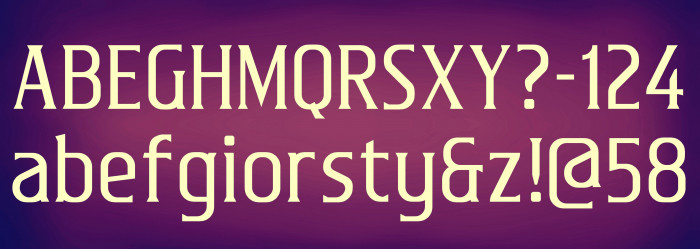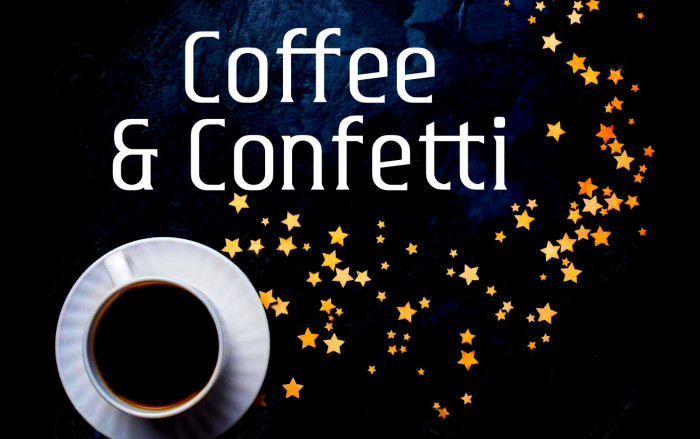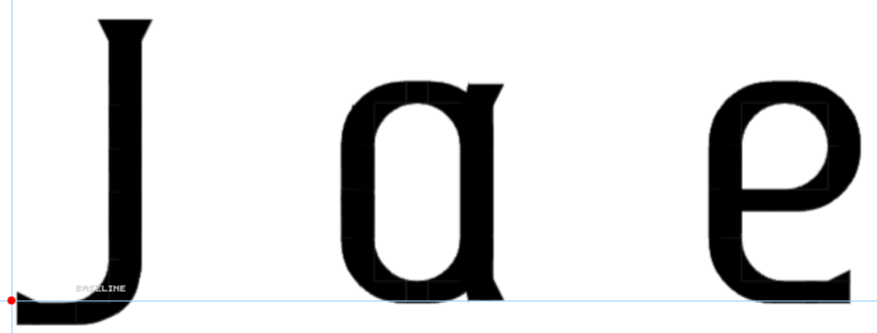
Thin sister of zenando, more legible for body text (even at pixel size), but with numerous differences on a lot of glyphs (it's a new font, basically). You can find an additional "$" in the "§" glyph. There are also new ligatures "ff" and "tt" which are in the places of "fi" and "fl". Enjoy it, please.
it looks like i would use it in some sort of elegant poster thing
A great work, I love the diagonal stroked glyphs a lot, they just pop at this weight ratio.
M fixed.